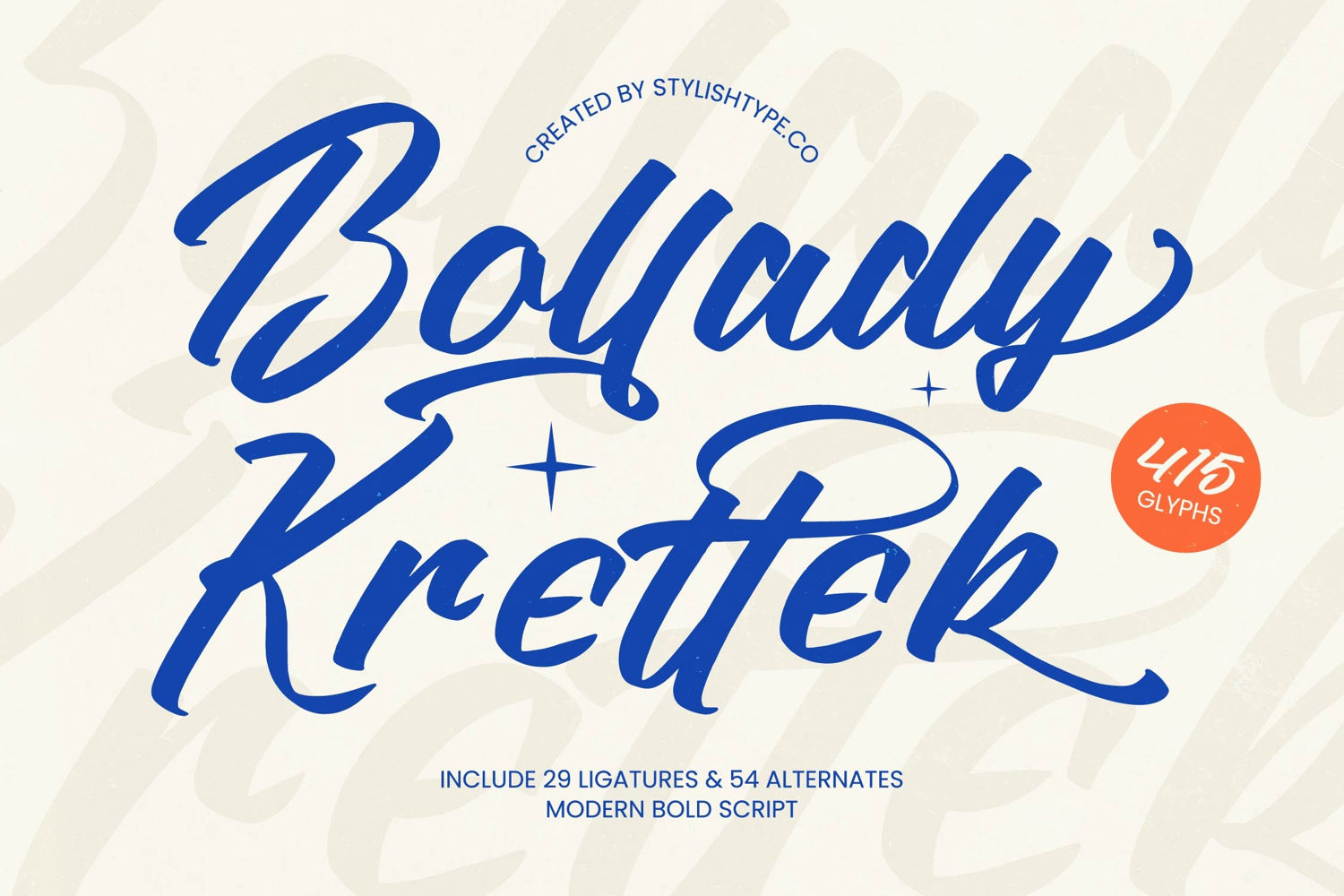
Bollady Krettek - Modern Bold Script
Elevate your design projects with the striking personality of Bollady Krettek - Modern Bold Script. This font is a dynamic brush script that balances organic fluid strokes with a bold, contemporary edge. Crafted for impact, Bollady Krettek - Modern Bold Script offers a hand-lettered feel that brings authentic energy to any creative layout. Its robust weight and expressive curves make it an essential tool for designers seeking to capture attention immediately.
Unlock unparalleled creative freedom with a comprehensive set of 415 glyphs. This typeface includes 29 ligatures and 54 stylistic alternates, allowing for deep customization and a truly unique typographic rhythm. With its extensive multilingual support, Bollady Krettek - Modern Bold Script adapts seamlessly across global markets, making it incredibly versatile for international projects. Whether your message is in English or dozens of other languages, Bollady Krettek - Modern Bold Script maintains its premium aesthetic integrity and readability.